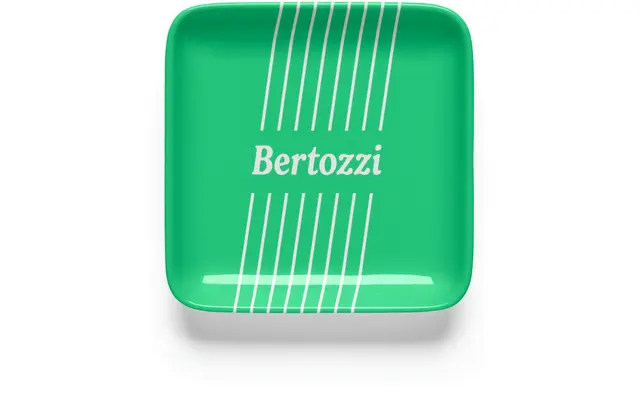
New Spirit Condensed Italic
A thorough revival of Windsor (1905), redrawn across a wide family with condensed and compressed cuts that make it credible for contemporary editorial and identity work.
Originally released by Stephenson, Blake & Co. in 1905, Windsor is here reworked into a complete, well-weighted family spanning upright, italic, condensed and compressed subfamilies. The design carries an Arcadian quality described by the foundry as organic and untainted by industry, sitting close to Oldstyle serif tradition while retaining Windsor's idiosyncratic warmth. Five italic weights in the condensed cut run from Light to Bold, giving the family real flexibility across headings and display settings.
A revival of Windsor (1905), New Spirit draws on Arcadian, organic qualities while nodding to conservative Oldstyle serif traditions, placing it firmly in the oldstyle serif subcategory with display-weight character.